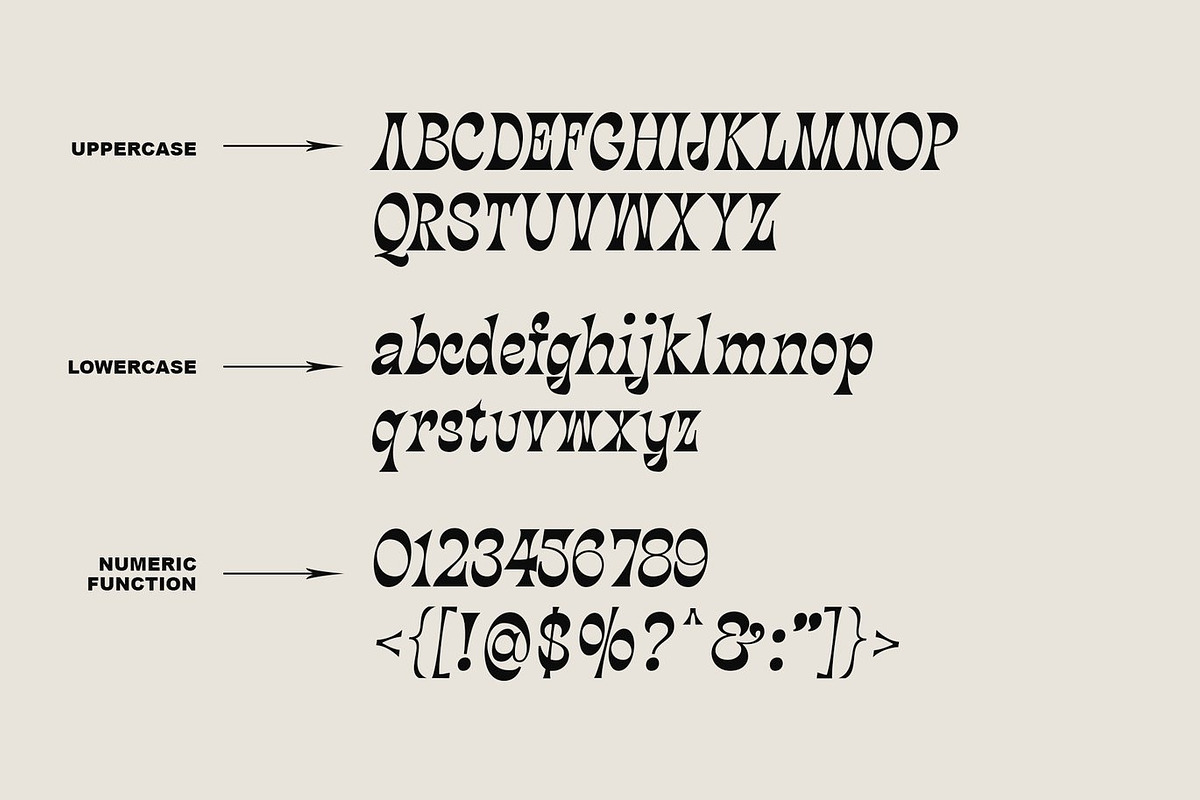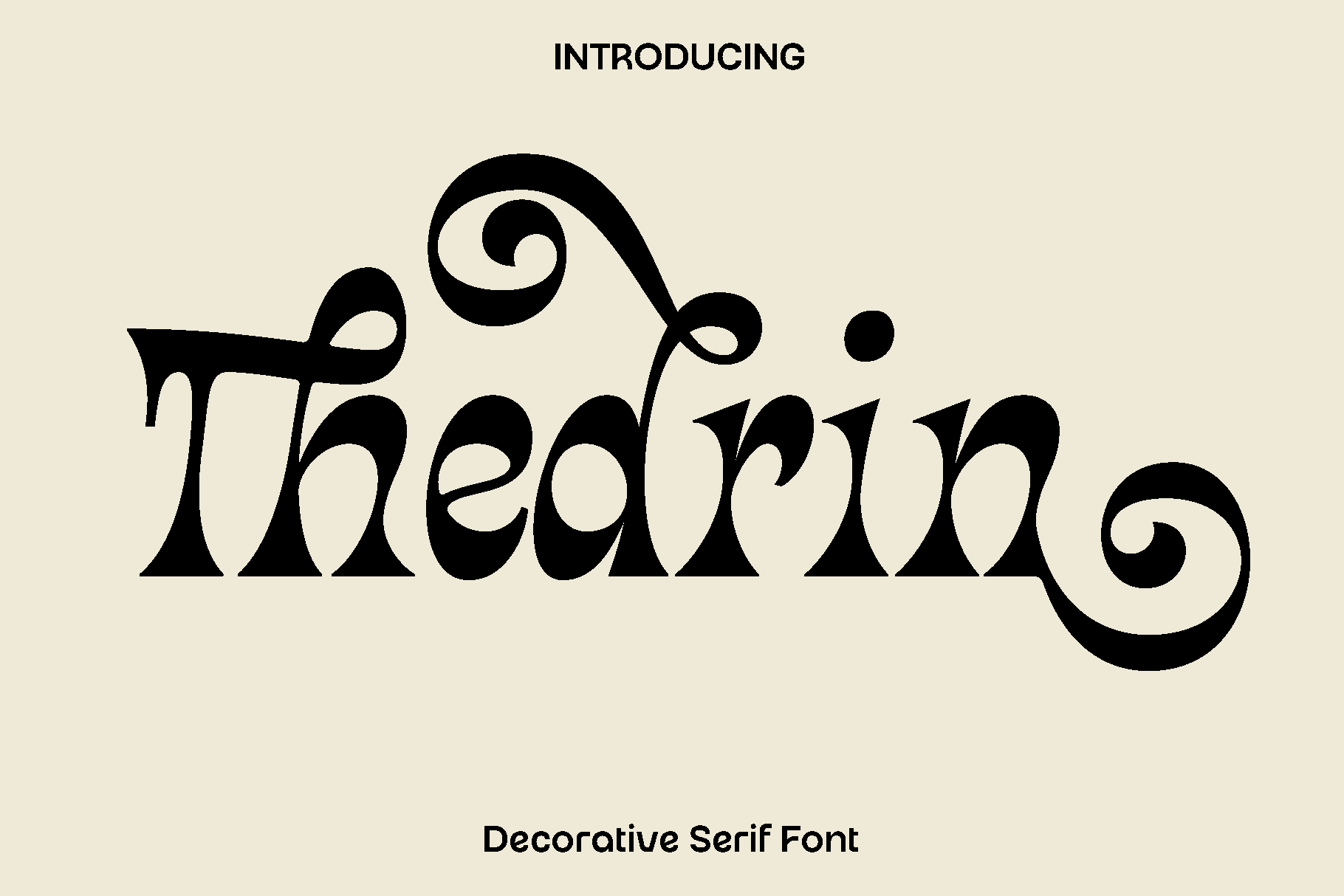
Thedrin - Decorative Serif Font
Thedrin is a versatile and stylish display font designed to bring sophistication and personality to your creative projects. Its carefully crafted letterforms balance elegance with modern aesthetics, making it a perfect choice for designers seeking a font that is both functional and visually captivating. Thedrin’s refined style allows it to adapt seamlessly to a wide range of applications, from bold headlines to subtle typographic details.
This font shines in editorial work, branding, logos, book covers, magazine layouts, photography overlays, blog headers, posters, and advertising campaigns. Its clean, legible design ensures that every word makes an impact, while its stylistic alternatives and ligatures add a unique touch that elevates your work. Whether you are creating digital or print content, Thedrin enhances the visual appeal of your designs with elegance and clarity.
Thedrin’s thoughtfully designed features, including uppercase and lowercase letters, numerals, multilingual support, stylistic sets, and ligatures, provide maximum flexibility for any creative endeavor. Available in OpenType and TrueType formats, this font is ready to become an essential part of your design toolkit.
Thedrin Font Features:
• Uppercase and lowercase letters
• Numerals and symbols
• Stylistic alternatives and ligatures
• Multilingual support
Thedrin adds a touch of sophistication and versatility to every project, making your designs stand out with a polished and professional look.